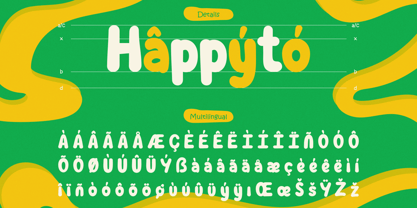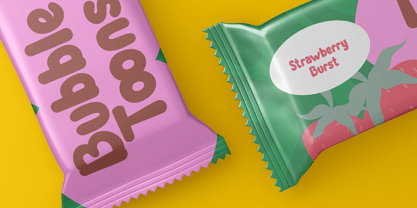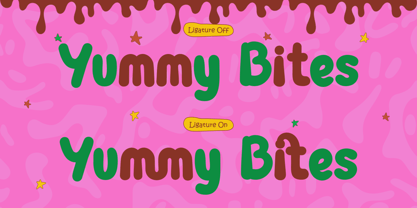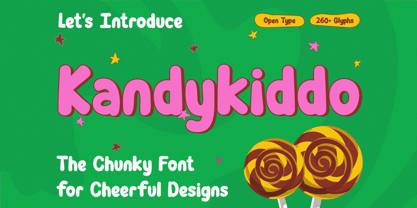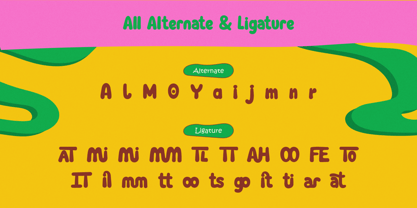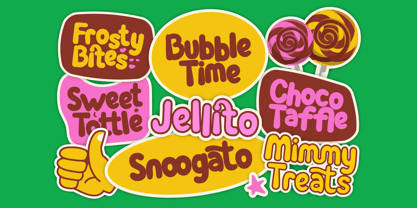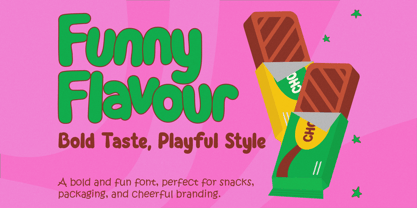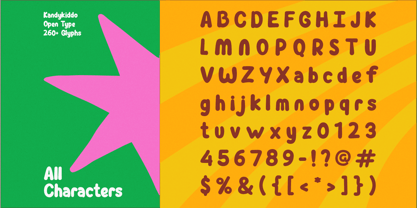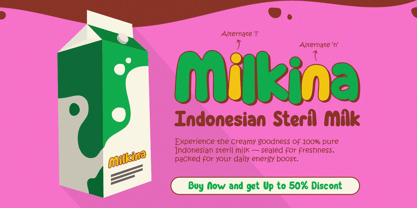
Kandykiddo
The Kandykiddo Font Family was designed by Muhamad Yusron Billah and published by Sronstudio. Kandykiddo contains 1 styles. More about this family
KandyKiddo is a bold and playful chunky font designed to bring a high-energy "sugar rush" to your creative projects. Inspired by retro candy packaging and puffy 90s street style, its thick, inflated curves and soft edges make every letter feel bouncy and full of life. It is the perfect choice for eye-catching logos, streetwear branding, and vibrant posters where you want your message to stand out with a fun, nostalgic, and unapologetically loud personality. What’s Included: - Alternates & Ligatures - Numerals & punctuation - PUA encoded for easy access - Multilingual support - Works seamlessly on Mac & Windows Thank you very much!